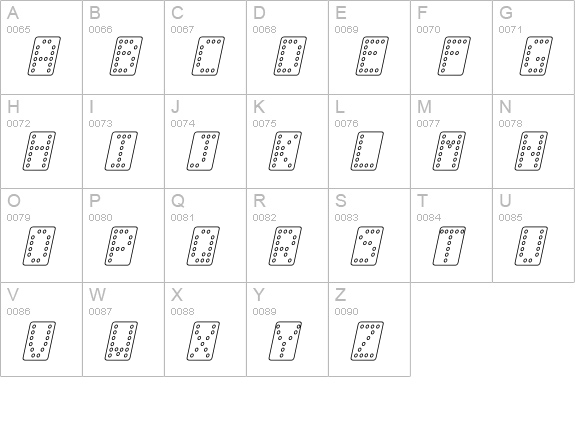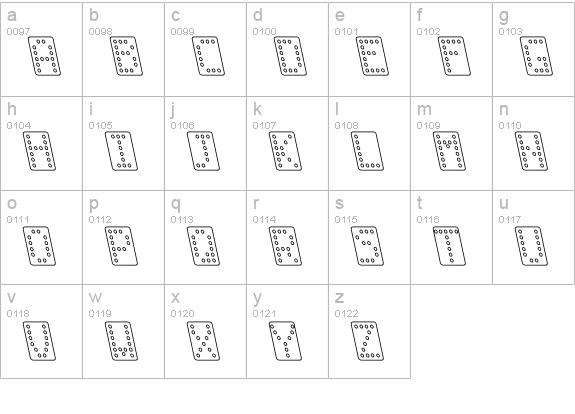
Domino normal kursiv omrids is the standard, neutral variant in the Domino typeface family \xE2\x80\x94 well suited to general body text, paragraphs, and standard typographic work.
Domino normal kursiv omrids font is a sleek and modern typeface that exudes elegance and sophistication. Its italicized design adds a touch of flair to any project, making it perfect for both professional and creative endeavors. This versatile font is ideal for a wide range of applications, from branding and marketing materials to editorial design and web content. And the best part? Domino normal kursiv omrids font is completely free to download at FontsMarket.com! Whether you're a designer looking to add a fresh new font to your collection or a business owner in need of a stylish typeface for your branding, this font has got you covered. Don't miss out on the opportunity to elevate your projects with this stunning font – download it today and see the difference it can make!